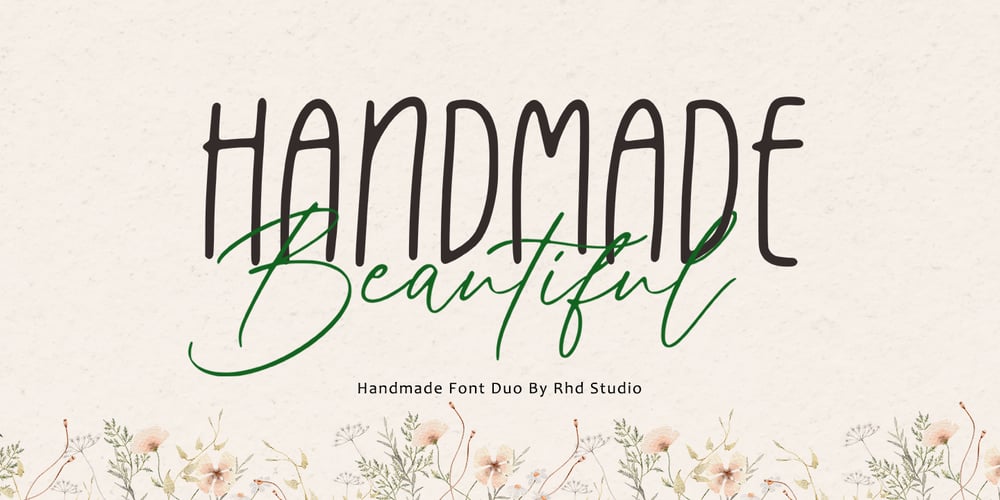
Handmade Beautiful
Handmade Beautiful font
Handmade Beautiful Font Family was designed by Rahmad Rizky and published by Rhd Studio. Handmade Beautiful contains 2 styles and family package options. Handmade Beautiful consists of two fonts designed to complement each other perfectly. Together or apart, these fonts are ideal for adding a stylish, cheerful touch to your crafts. Handmade Beautiful is a PUA code which means you can access all the glyphs easily!